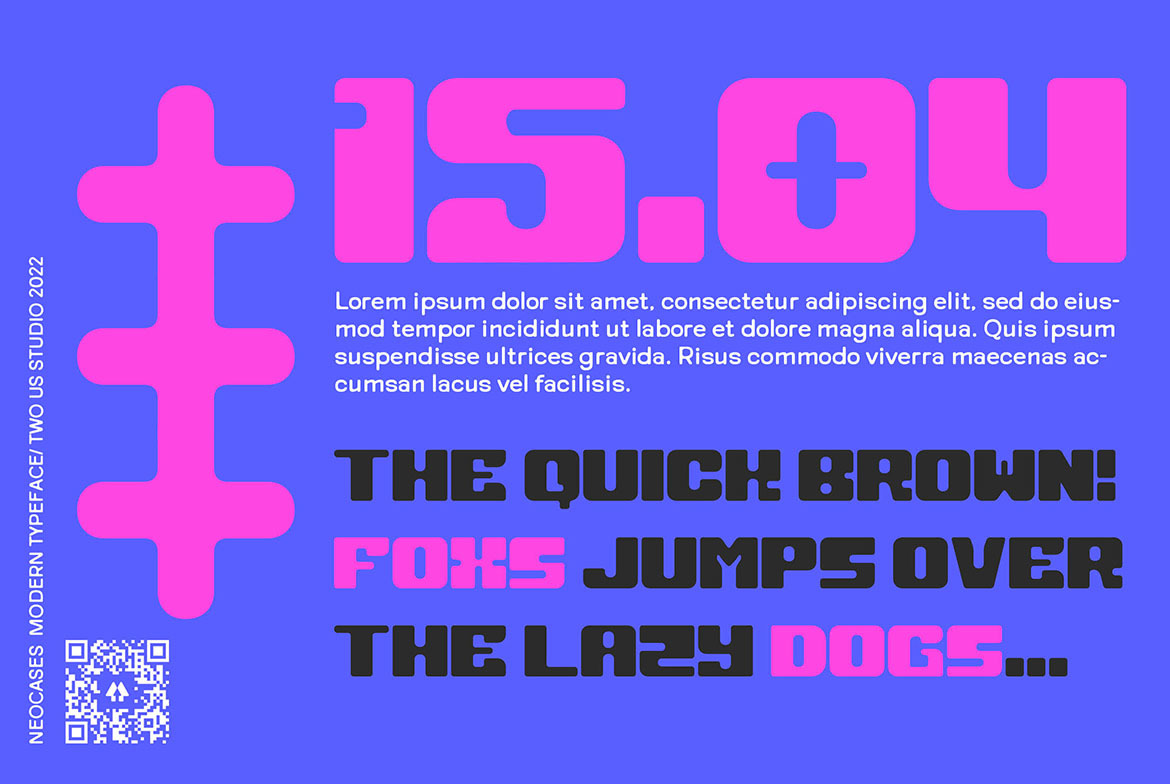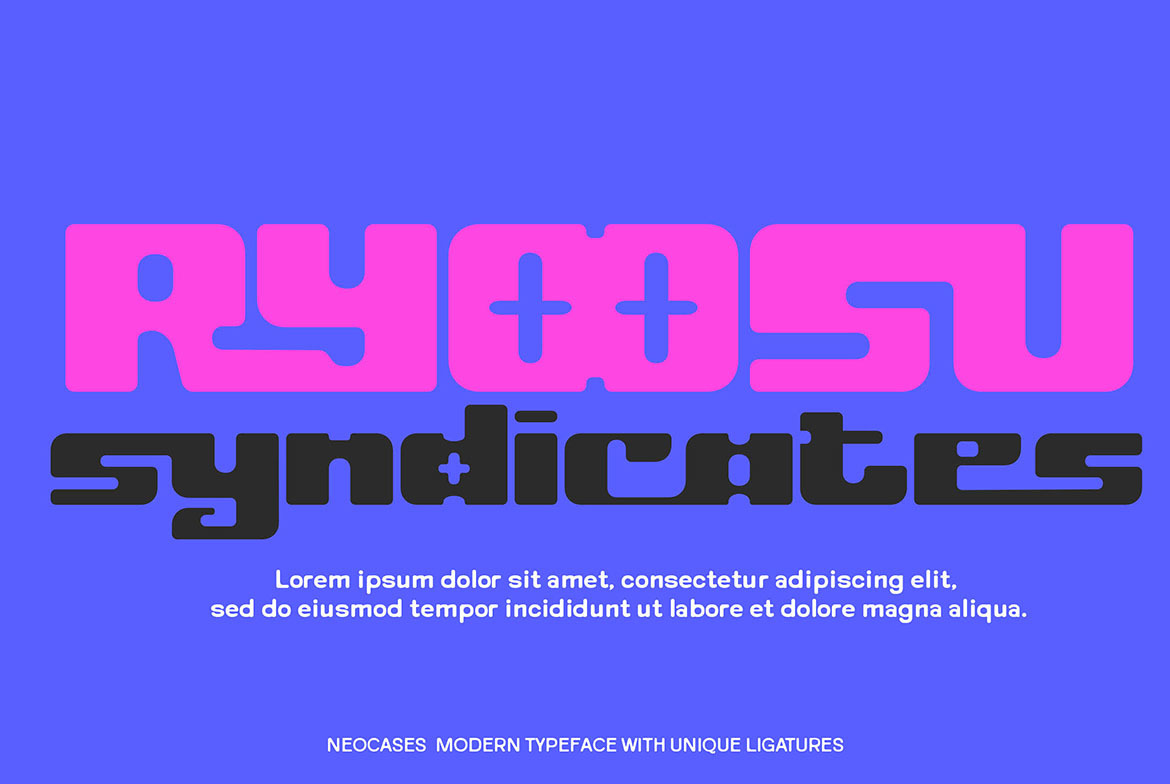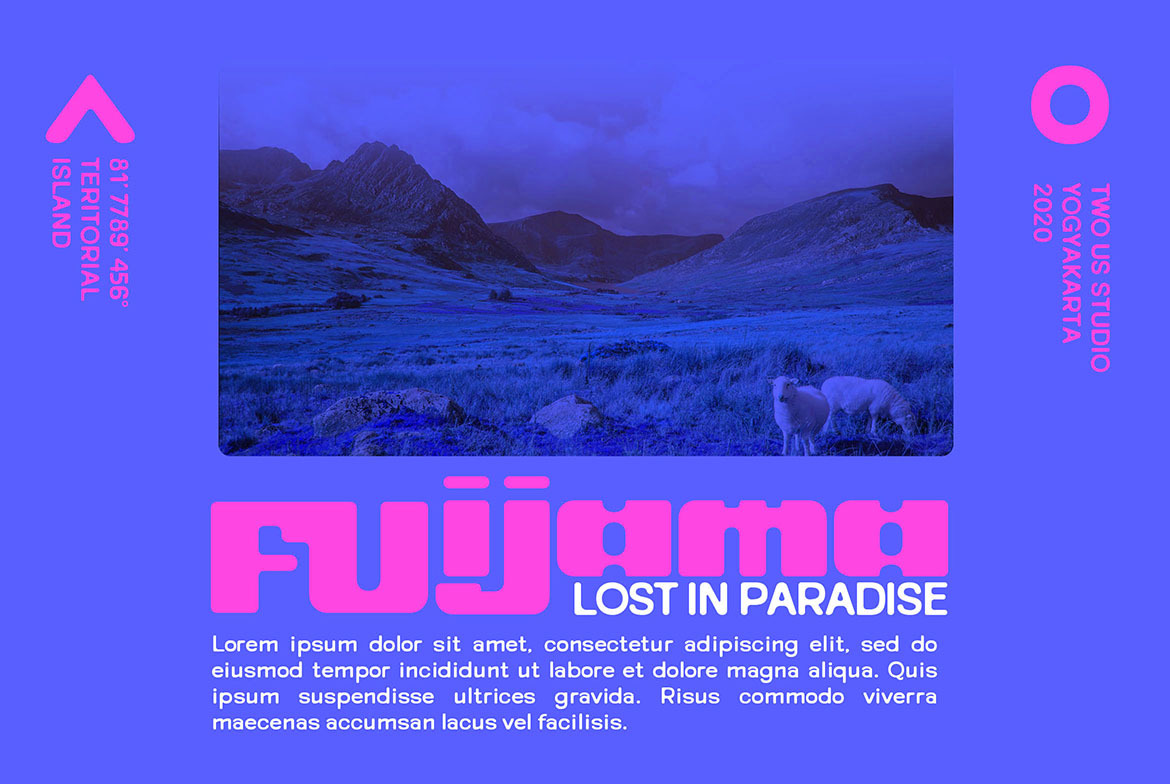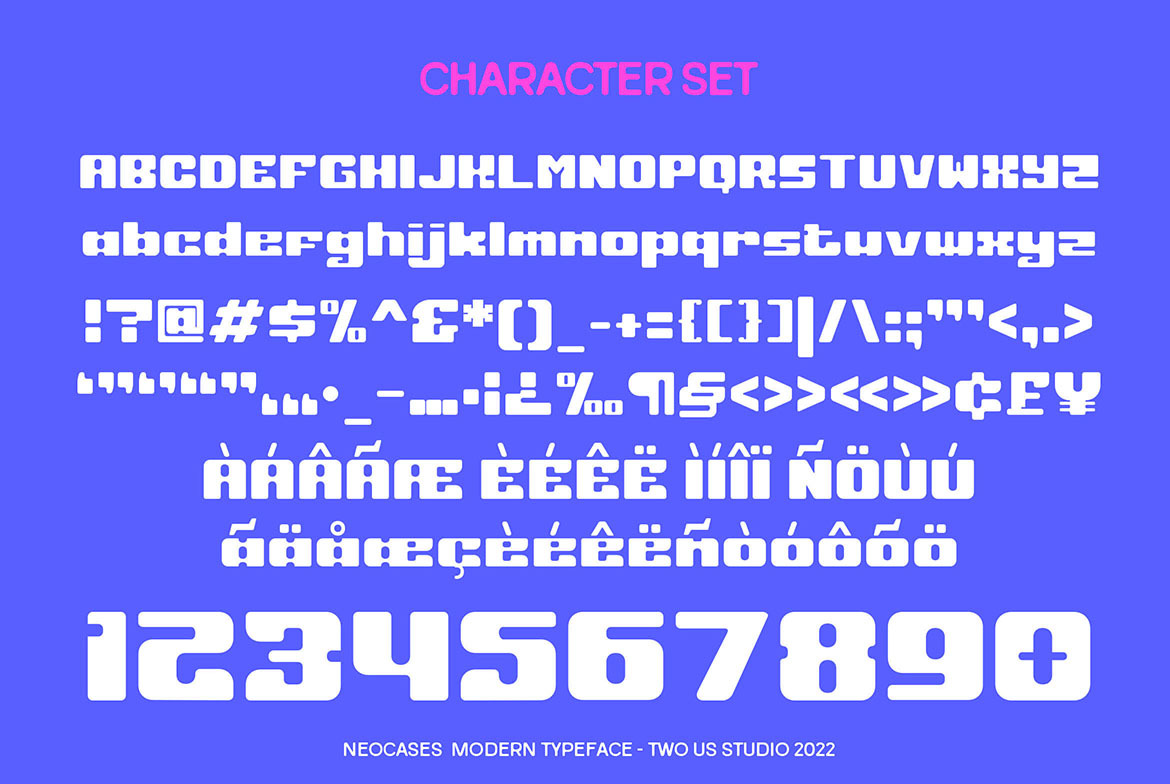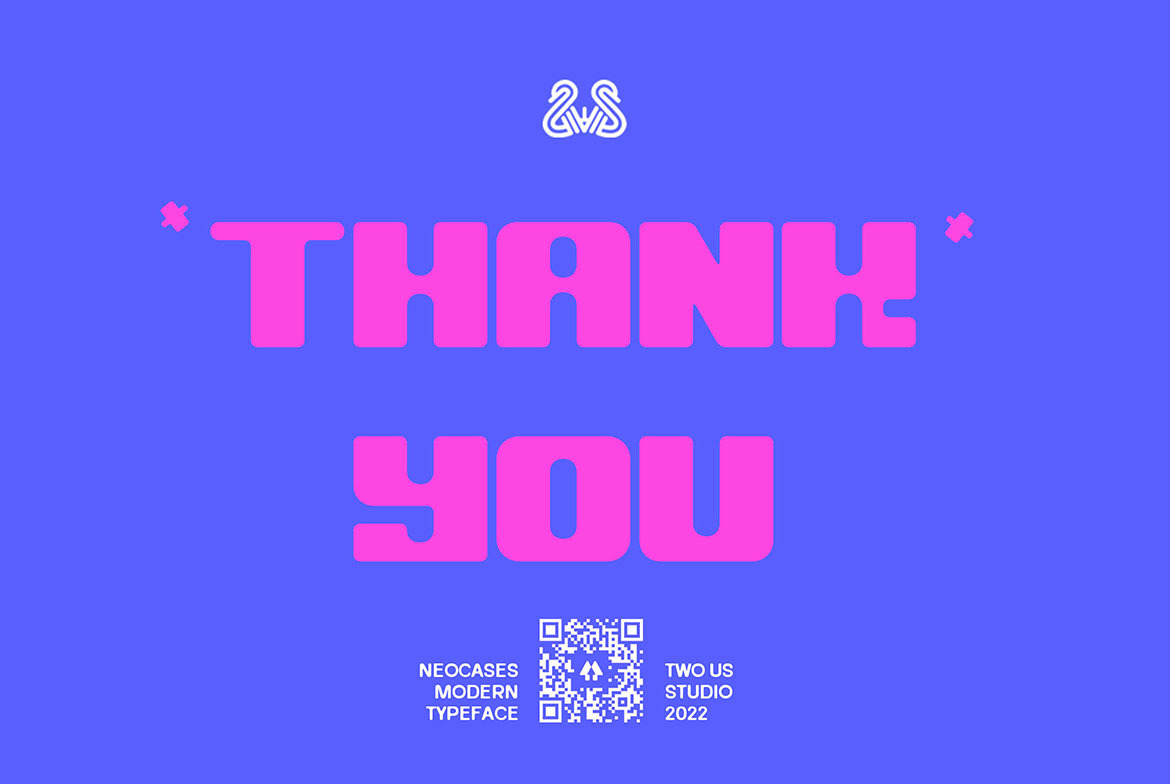
Neocases - Unique Display Typeface
Neocases is a bold and thick lettered display font. It is squared lettered and cool and it will most certainly elevate your creations.
Neocases is a Unique and modern display font. This bold and bulk font can easily become your favorite. It can be used for books, magazines, social media posts, invitations, and so much more! So add this to your creations and take your designs to the next level!
Comes with regular, ligatures and multilingual